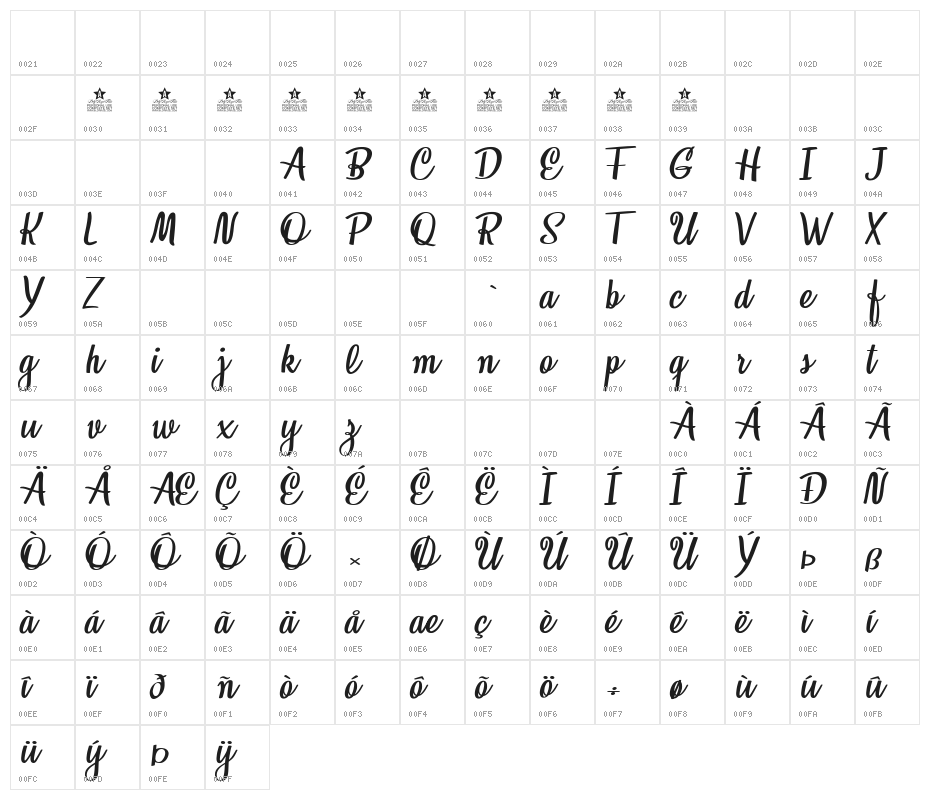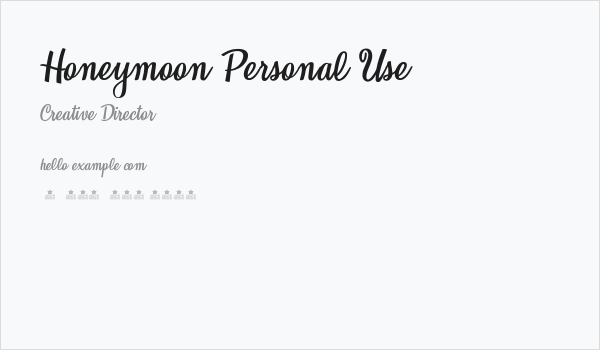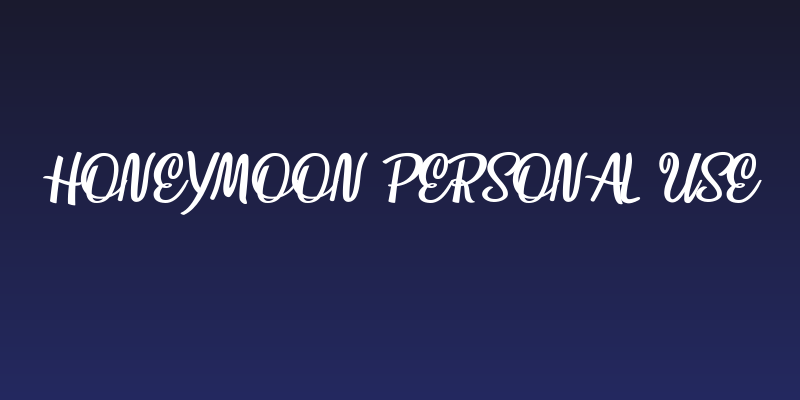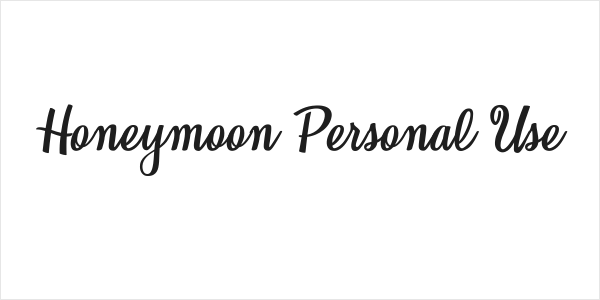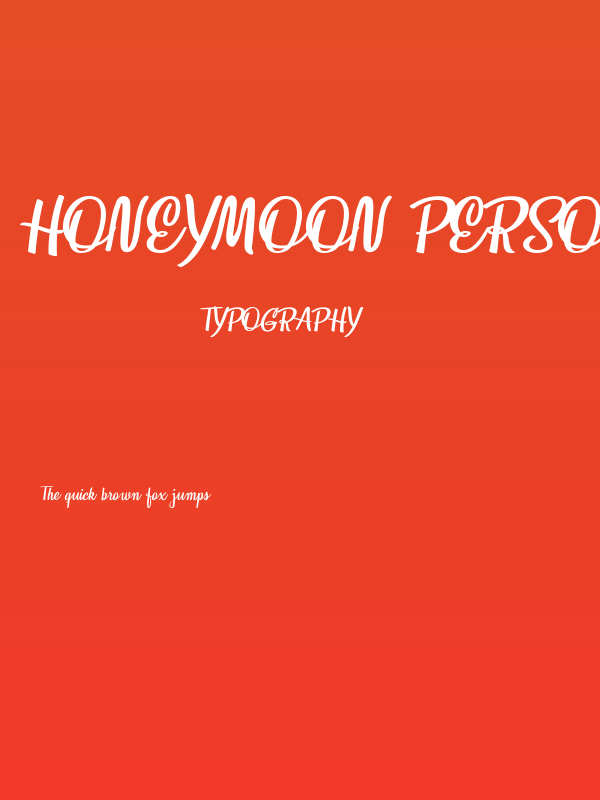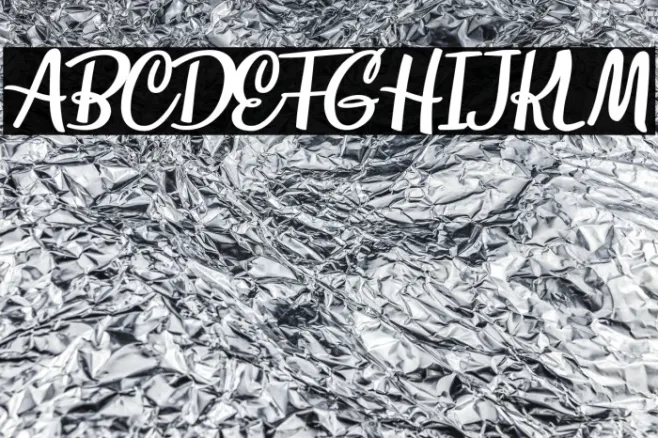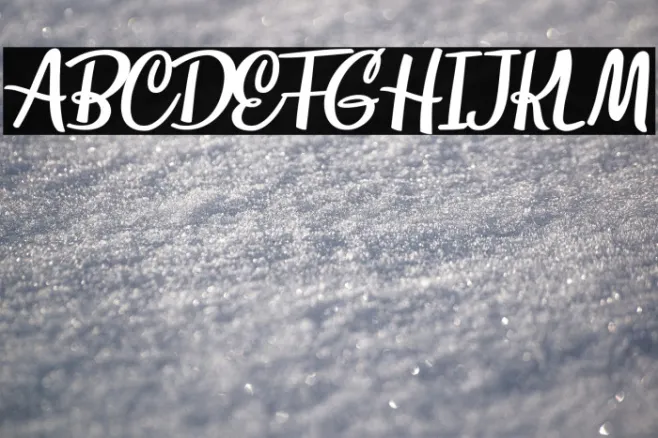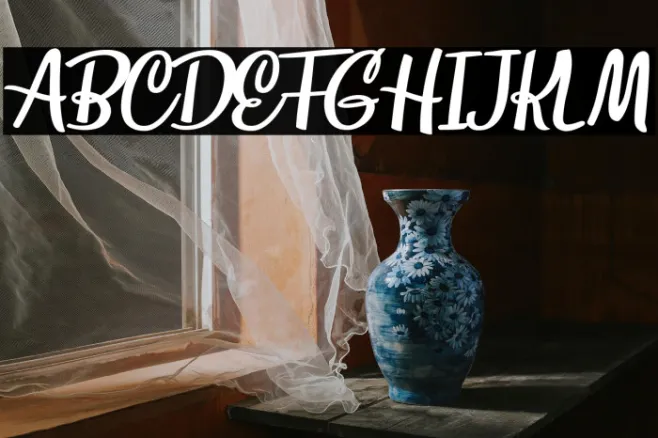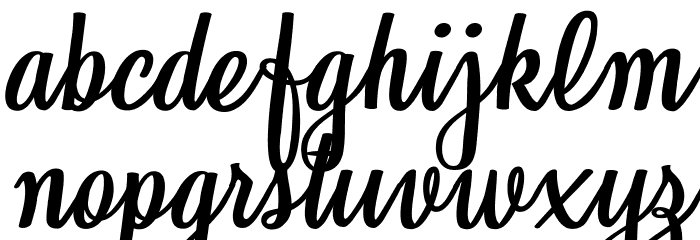
Honeymoon Personal Use Font
| Gesamtstil | Elegant, Handwritten |
| Anwendungsfall | Headlines, Invitations, Branding |
| Vorgeschlagene Projekte | Ideal for wedding invitations, greeting cards, branding, and personal projects where a touch of elegance is desired. |